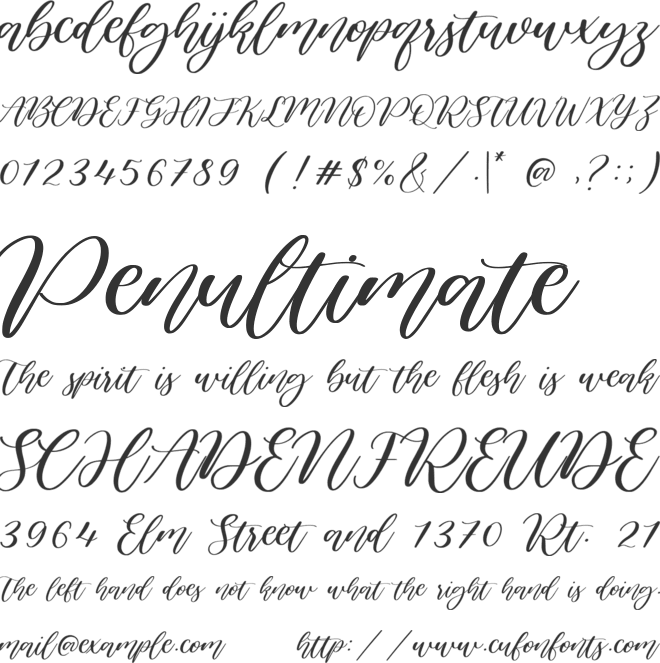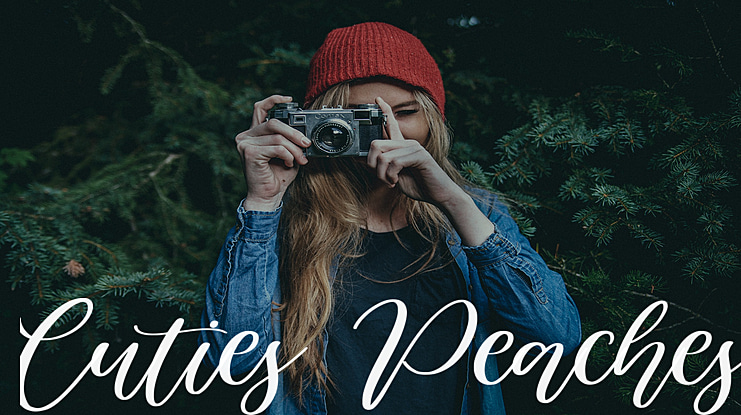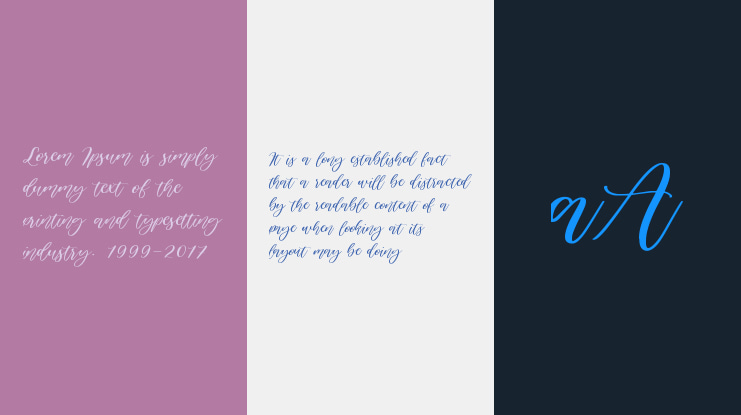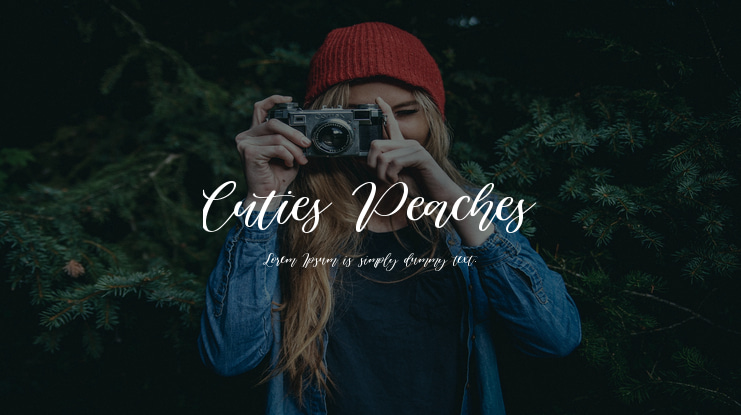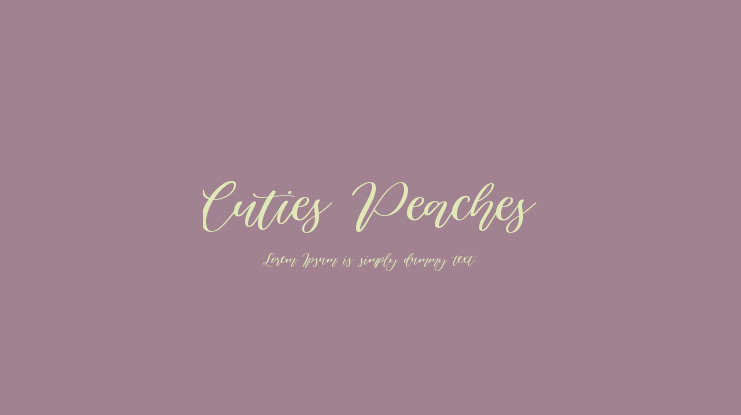
Cuties Peaches Font
Proudly Present, Cuties Peaches Font.
Cuties Peaches is a Beautiful Modern Calligraphy Font.
Cuties Peaches is perfect for product packaging, branding project, megazine, social media, wedding, or just used to express words above the background.